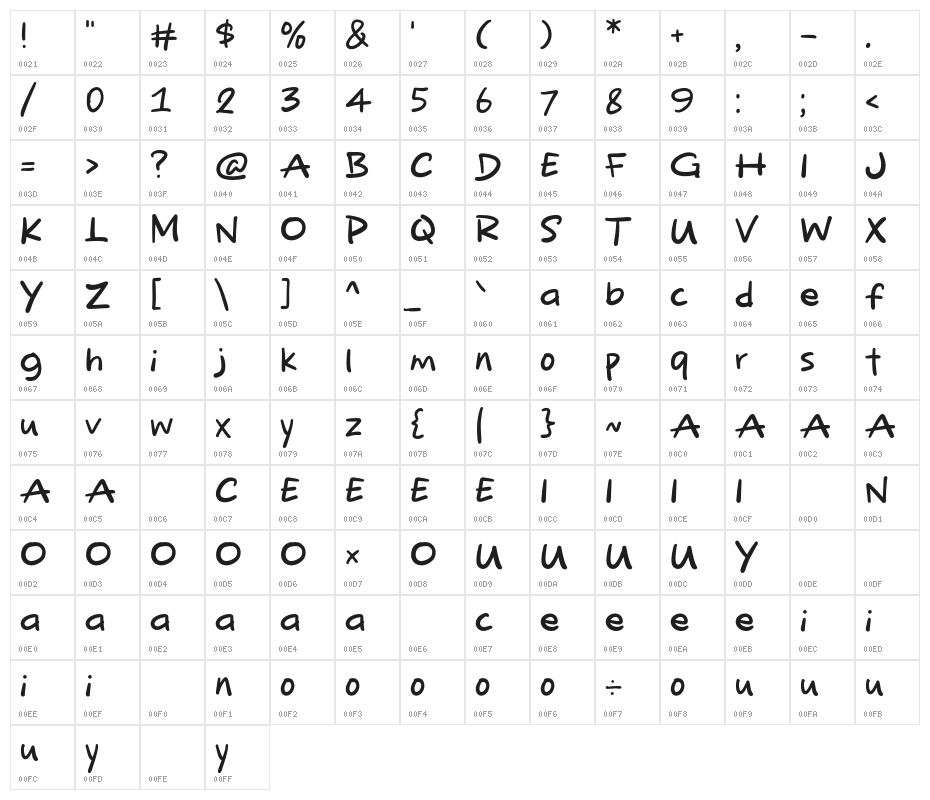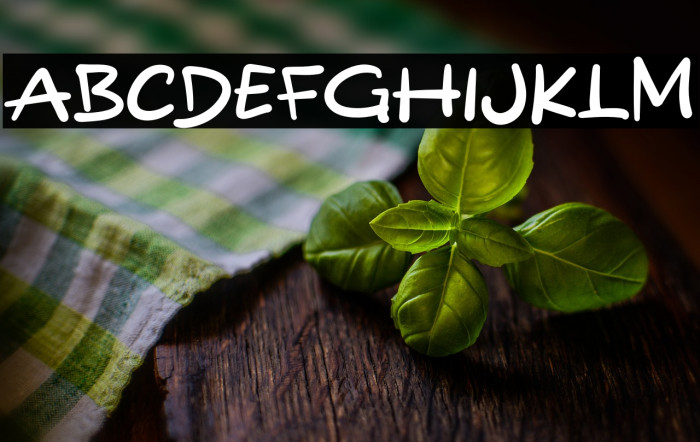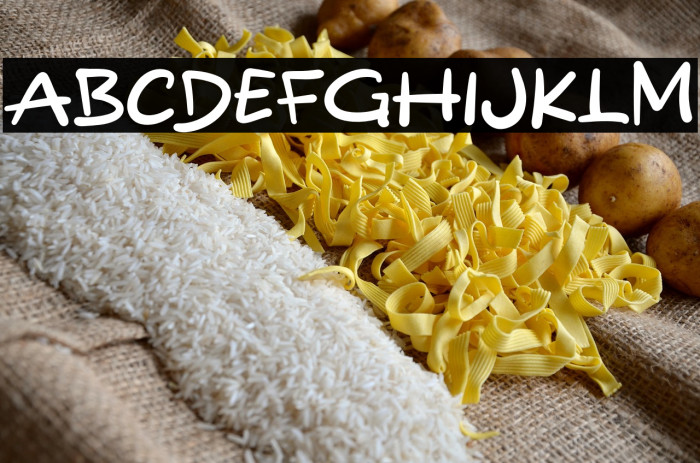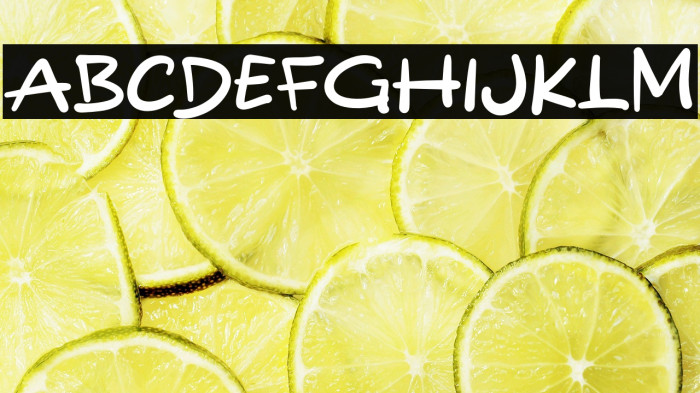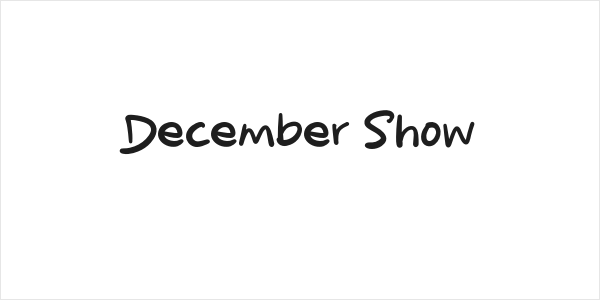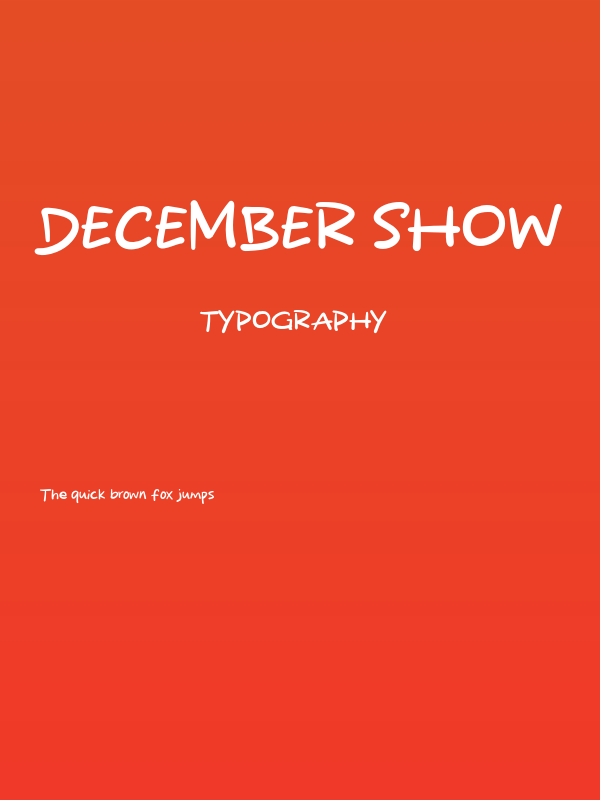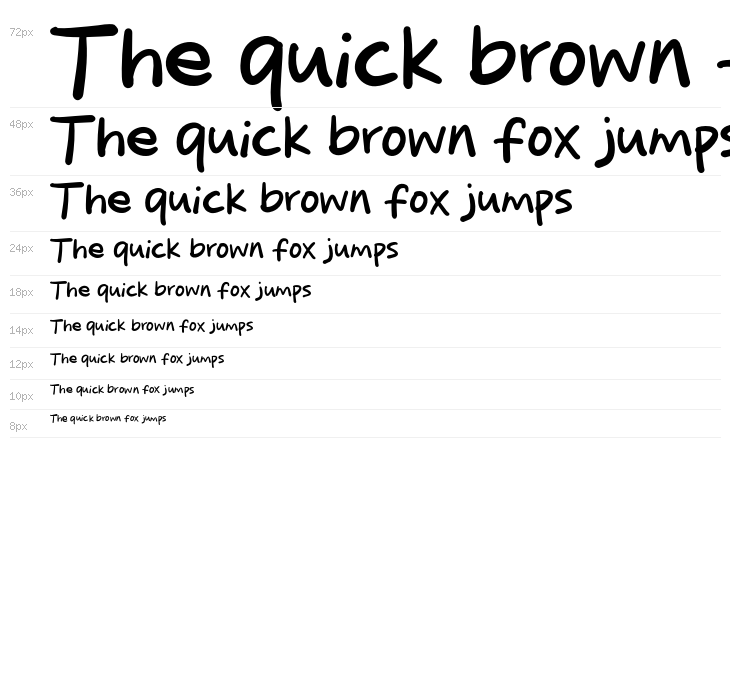
December Show Font
December Show Description
This font exudes a playful and casual handwritten style, characterized by its smooth, rounded edges and slightly irregular letterforms that mimic natural handwriting. The uppercase and lowercase letters maintain a consistent flow, with a slight tilt that adds to its informal charm. The numerals and special characters are crafted with the same playful touch, ensuring a cohesive look across all text. The font's overall appearance is friendly and approachable, making it ideal for projects that require a personal touch.
| Overall Style | Casual, Playful |
| Use Case | Headlines, Informal text, Personal projects |
| Proposed Projects | Ideal for greeting cards, children's books, personal blogs, and informal branding projects. |